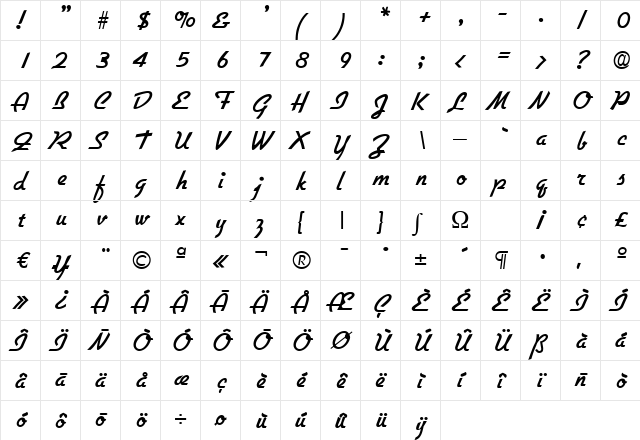
Script-G731 Regular Font Preview
Script-G731 Regular
Script-G731 Regular Font Details
Design Context for Script-G731 Typeface
Script-G731 brings a calligraphic fluidity to the page — its connecting strokes and expressive curves give it an unmistakably human quality.